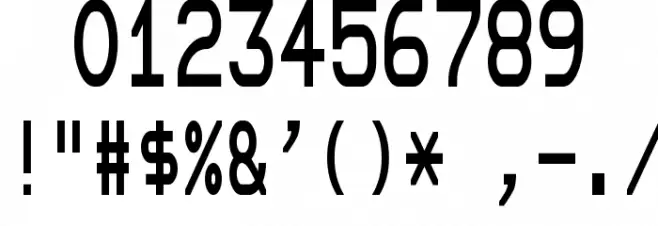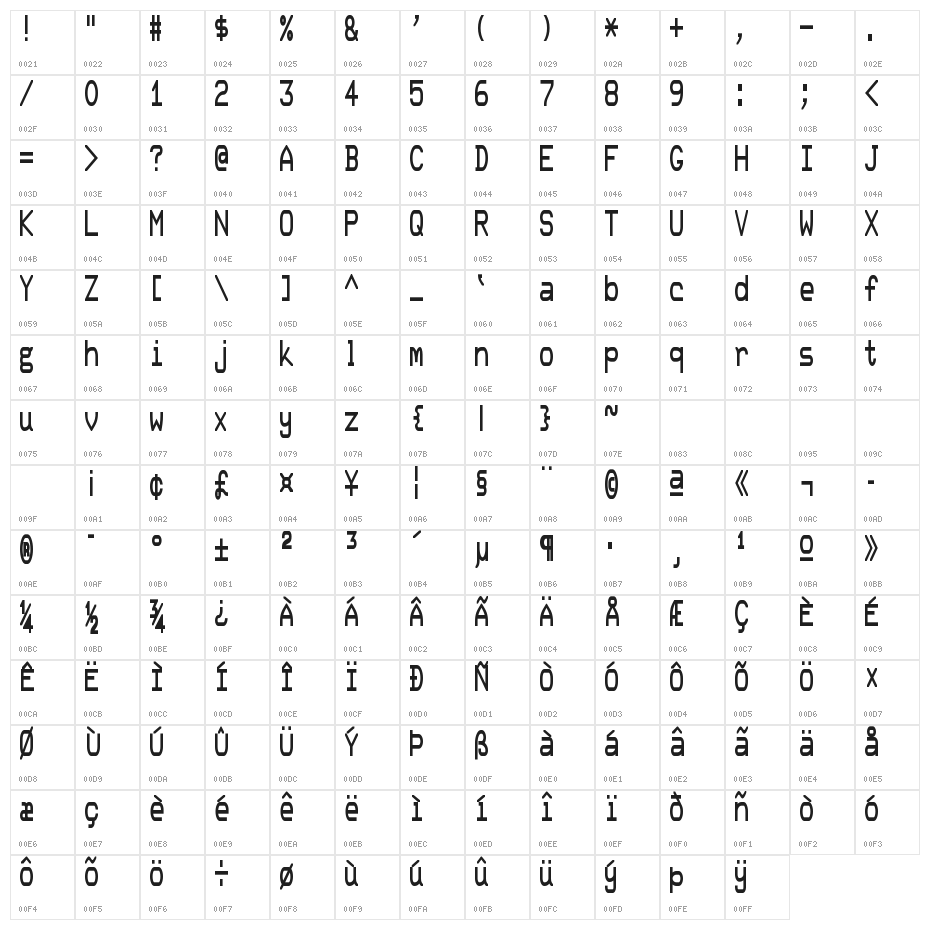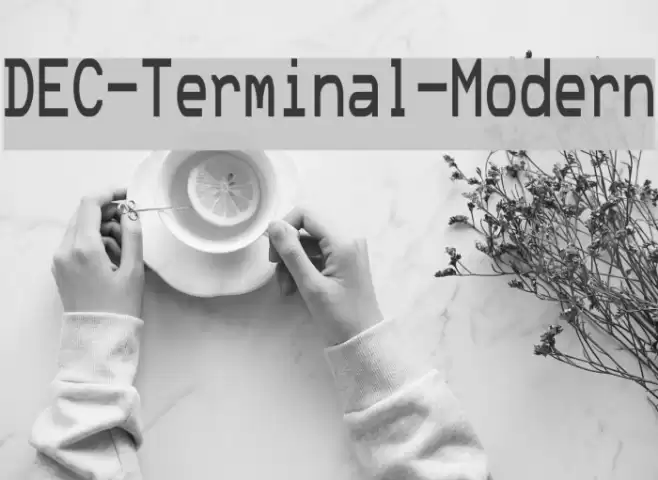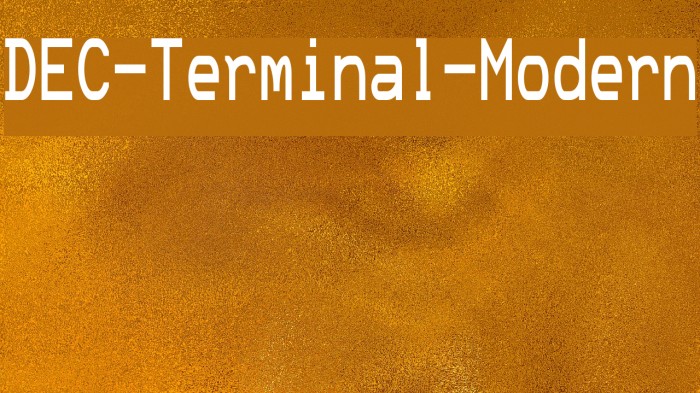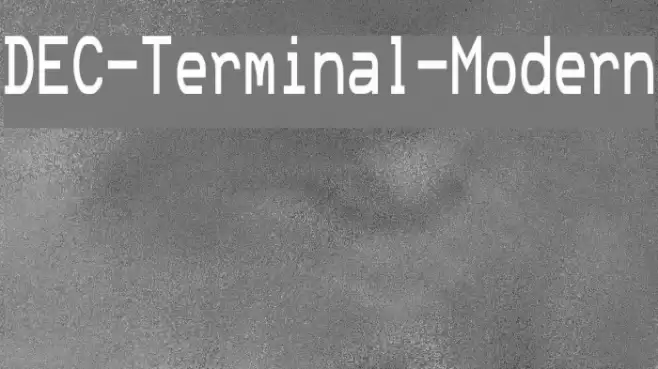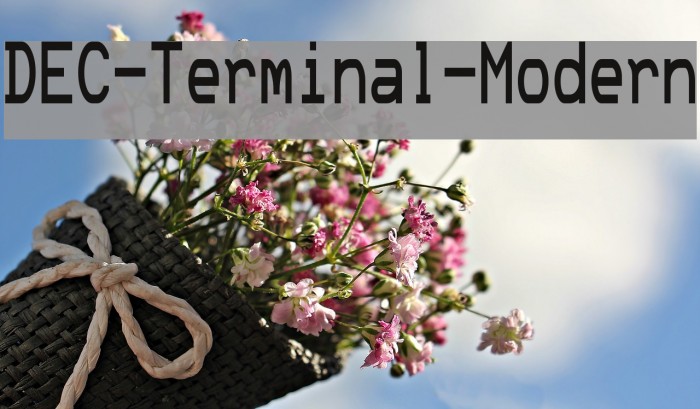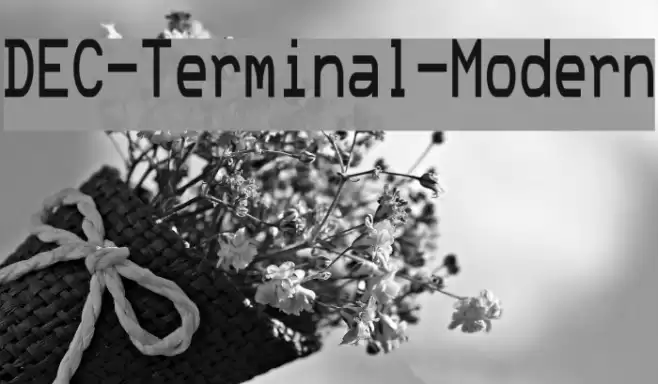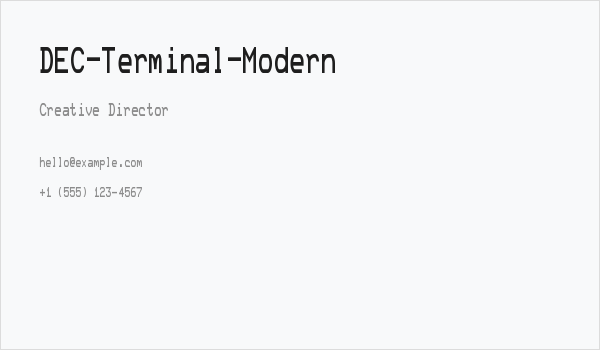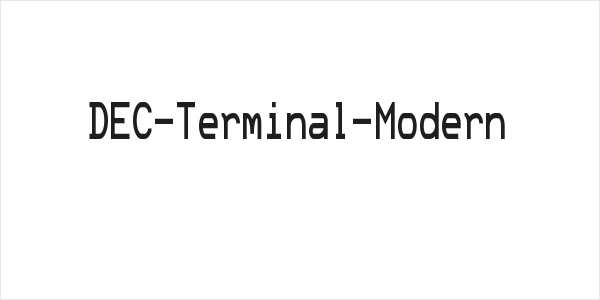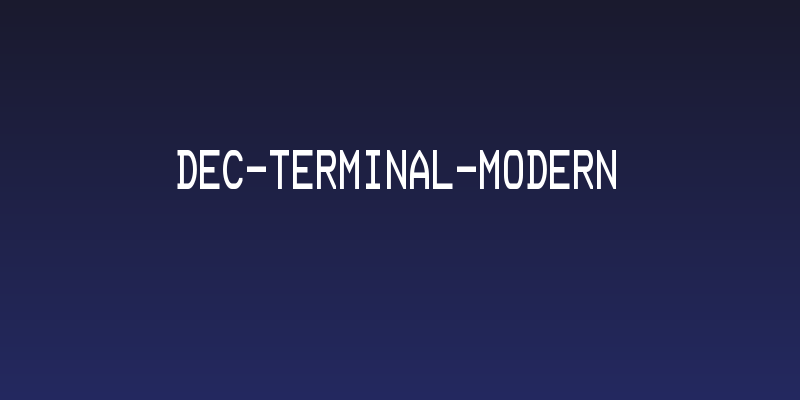
DEC-Terminal-Modern Font
DEC-Terminal-Modern Description
This font features a clean, geometric design with a modern aesthetic. The characters are monospaced, providing a uniform appearance that is reminiscent of classic computer terminal fonts. The uppercase and lowercase letters maintain a consistent height, contributing to its orderly and structured look. The numerals and special characters are designed to match the overall style, ensuring readability and clarity. The strokes are even and consistent, with minimal contrast, giving it a straightforward and functional appearance.
| Use Case | Coding, Technical documentation, Digital displays |
| Proposed Projects | Ideal for coding environments, technical documentation, retro-themed designs, and digital displays. |